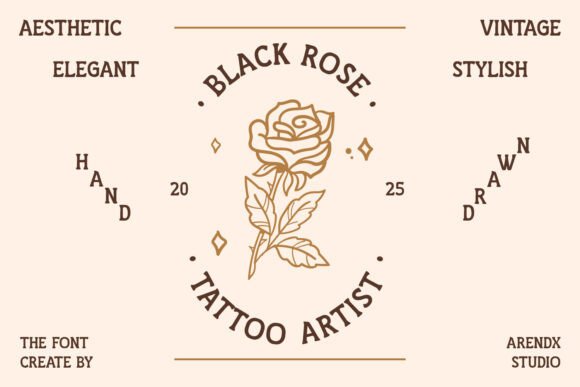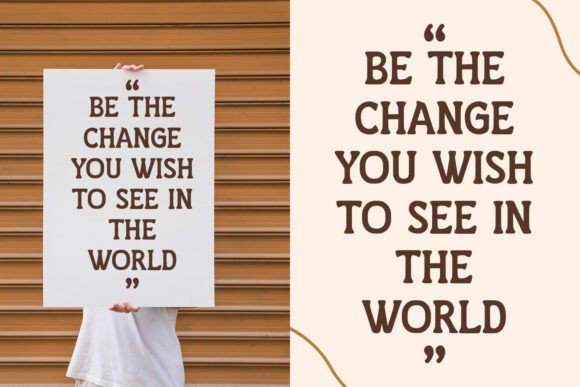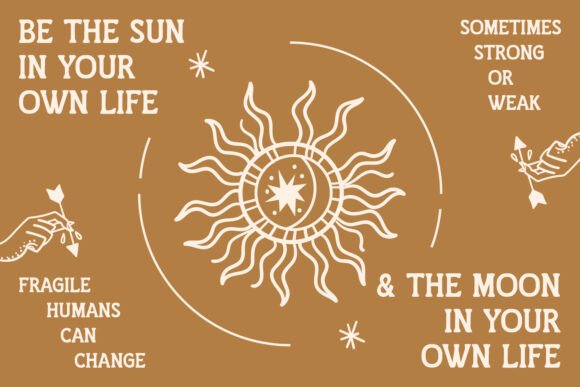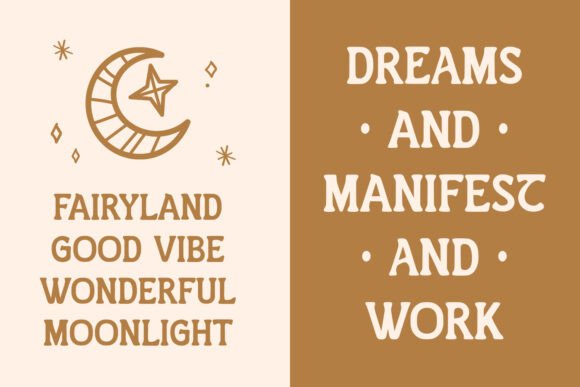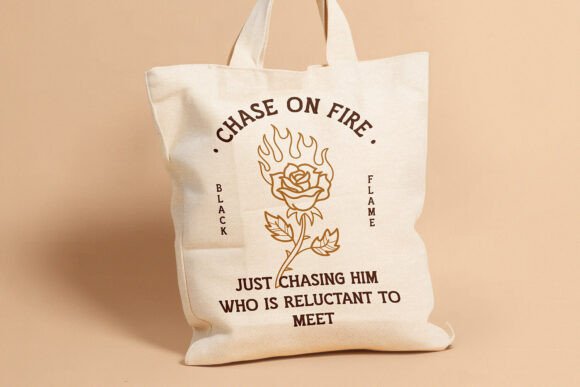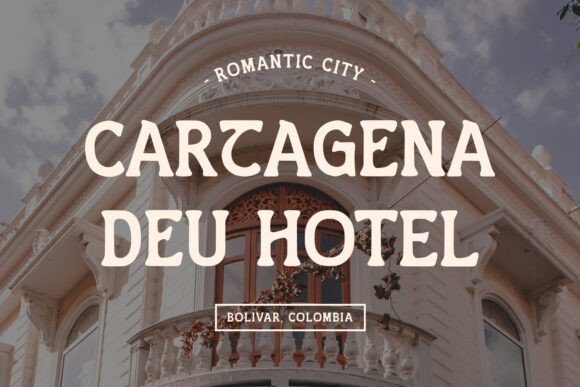
Introduction to Dofleur Font
As you sit at your desk, surrounded by design references and sketches, you’re suddenly struck by the idea to create a vintage-inspired poster for your favorite coffee shop. The challenge is to evoke the feeling of a bygone era without looking too kitschy or outdated. This is where the Dofleur Font comes in – a beautiful, hand-drawn serif typeface that instantly transports you to the charming streets of early 20th-century Europe.
The Dofleur Font is a design treasure trove, offering a high-quality, transparent background that allows for seamless integration with any creative project. Its delicate, artisanal strokes and subtle imperfections make it a valuable resource for designers seeking to add a touch of human warmth to their work. Whether you’re working on a free download or a commercial design, this font is sure to elevate your project with its sophisticated yet approachable aesthetic.
With the Dofleur Font, you’ll have access to a rich design resource that’s perfect for adding a vintage flair to your next creative project. From book covers to perfume labels, this font’s organic charm and refined serifs will transport your designs to a bygone era of elegance and sophistication.
Key Features of Dofleur Font
- High-quality, professional font suitable for creative projects
- Optimized for use at high resolutions, making it suitable for print and digital applications
- Unique, elegant design that adds a touch of sophistication to any creative project
Honest Review: Dofleur Font
I recently stumbled upon the Dofleur Font, and I must say it’s been a great addition to my design resource collection. As a designer, I’m always on the lookout for high-quality fonts that can elevate my creative projects.
What works well: ✨ The Dofleur Font has a beautiful, elegant design that’s perfect for any project requiring a touch of sophistication. The font is available for free download, which is a huge plus in my book. It’s also great to see that the font has a transparent background, making it easy to use on any design.
- ✨ Transparent background for easy use
Limitations: ⚠️ The Dofleur Font is only available in a single weight, which might be a limitation for designers who like to experiment with different font weights. Additionally, the font may not be suitable for very large text sizes, as it can become difficult to read.
Overall, I’m really impressed with the Dofleur Font. It’s a great addition to any designer’s toolkit, and I’m excited to see how it will help me take my creative projects to the next level.
Tips for Getting the Most Out of Dofleur Font
Experiment with different font sizes and styles to achieve the desired effect. Use the transparent background feature to create stunning visuals. Combine Dofleur Font with other design elements to create a unique and eye-catching design.
Common Use Cases for Dofleur Font
Dofleur Font is perfect for creative projects, including branding, marketing materials, and social media graphics. It’s also great for presentations, documents, and websites that require a unique and high-quality font.